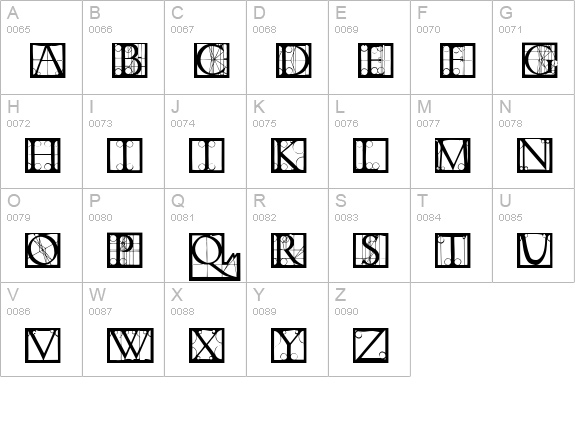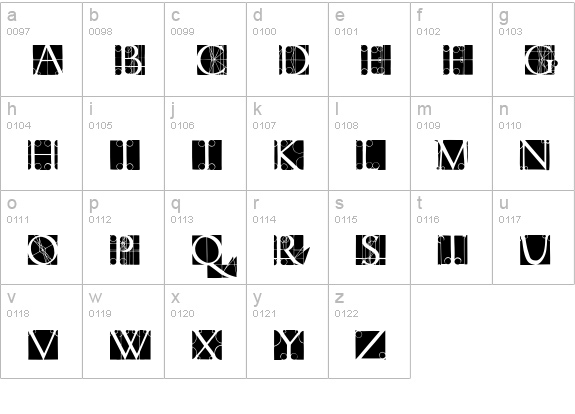
TornielloInitials Font Details
Introducing TornielloInitials, a captivating font that effortlessly combines elegance with a touch of vintage charm. This exquisite typeface is perfect for adding a unique and sophisticated twist to any design project. With its intricate details and stylish letterforms, TornielloInitials adds a sense of refinement and class to any piece of work. Whether you're creating a logo, branding materials, or designing an invitation, TornielloInitials will surely make a lasting impression. Its delicate strokes and ornate shapes bring a sense of nostalgia, evoking the timeless beauty of classic typography. One of the best things about TornielloInitials is that it is completely free to download at FontsMarket.com. Yes, you heard it right! This stunning font can be yours without spending a penny. Now, you can elevate your designs without breaking the bank. TornielloInitials offers a wide range of possibilities, allowing you to experiment and create visually stunning compositions. Its versatility enables it to be used in various contexts, from elegant wedding invitations to sophisticated magazine layouts. The possibilities are truly endless with TornielloInitials. So, why wait? Embark on a creative journey and elevate your designs with TornielloInitials. Download this remarkable font for free at FontsMarket.com and bring your projects to life with its timeless appeal. Let TornielloInitials be the key to unlocking your design potential and make a bold statement that leaves a lasting impression.